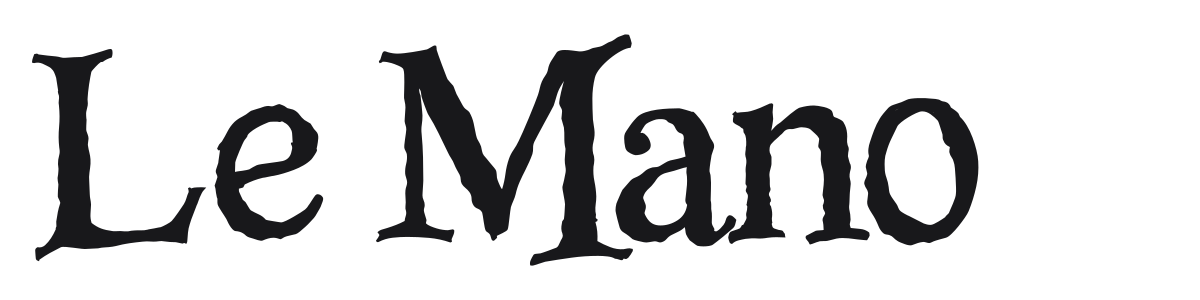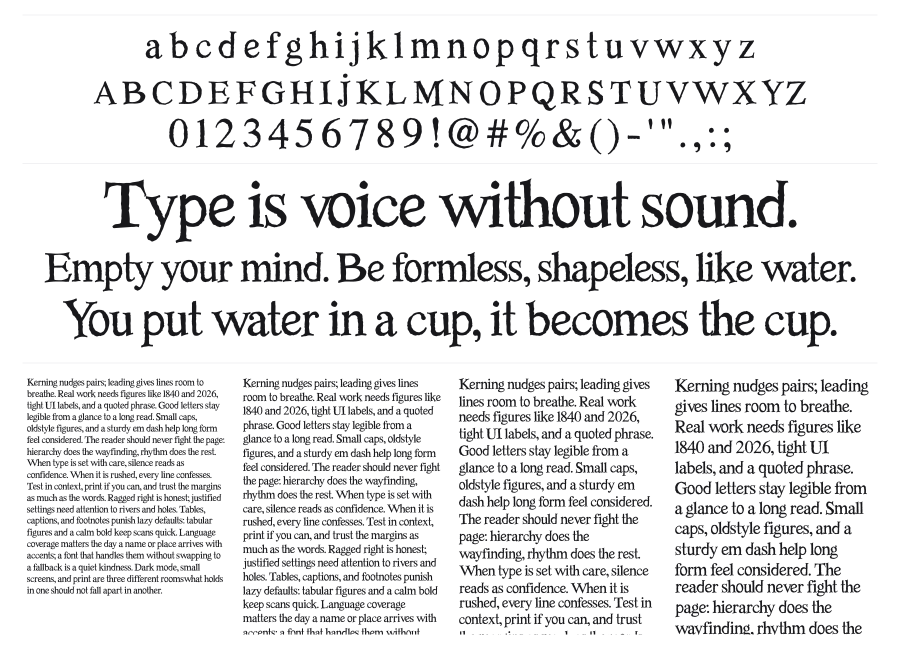
Le Mano
Le Mano is a distressed serif display font from Afkari Studio with the worn, inked texture of antique letterpress printing. High stroke contrast and bracketed serifs root it in old-style tradition, while the rough edges give it an unmistakably handcrafted feel. It works well anywhere an artisan or vintage aesthetic is needed, from product packaging to editorial headlines.